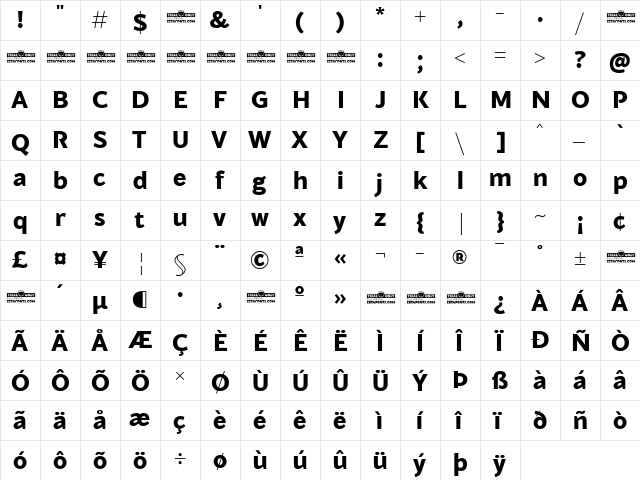
Blacker Sans Trial Extrabold
| Foundry | Zetafonts |
| Designer | Francesco Canovaro & Cosimo Lorenzo Pancini |
Design Context for Blacker Sans Trial Typeface
Blacker Sans Trial takes a measured approach to typography — its balanced proportions and neutral character make it a reliable workhorse for both digital and print work. Its bold stroke weight gives it real presence on the page.